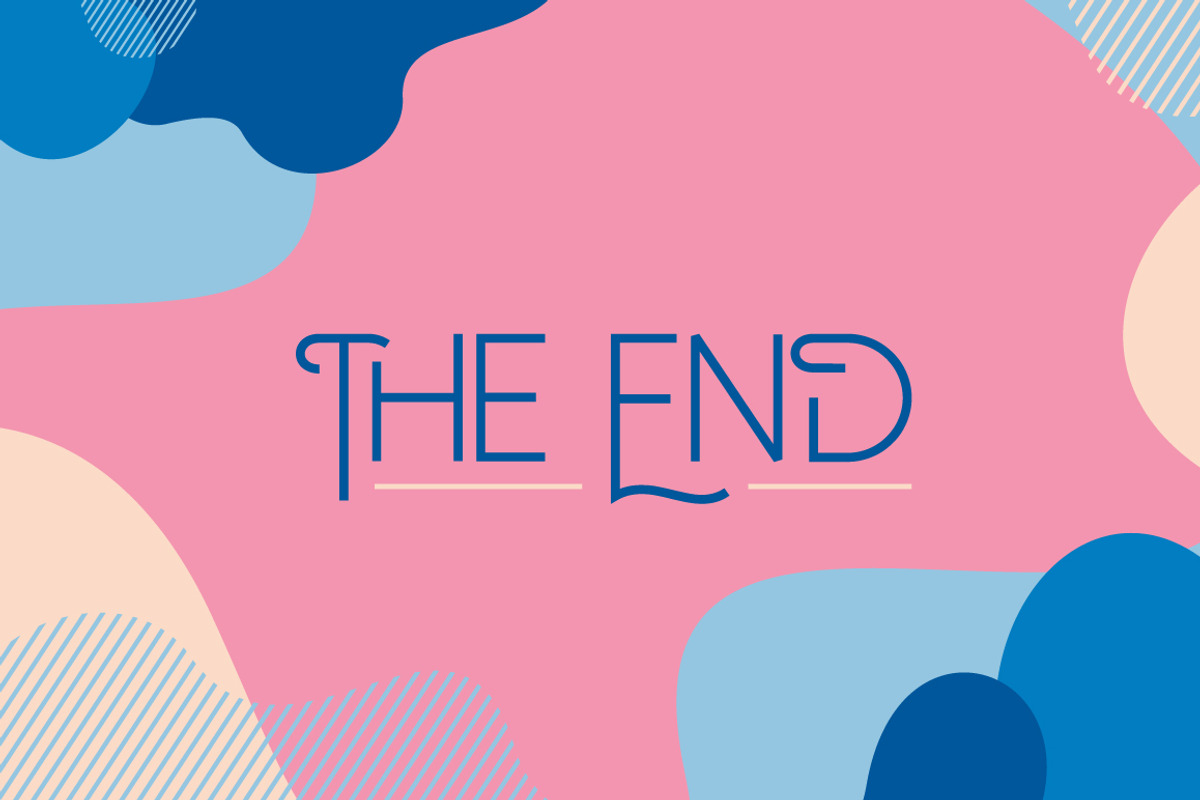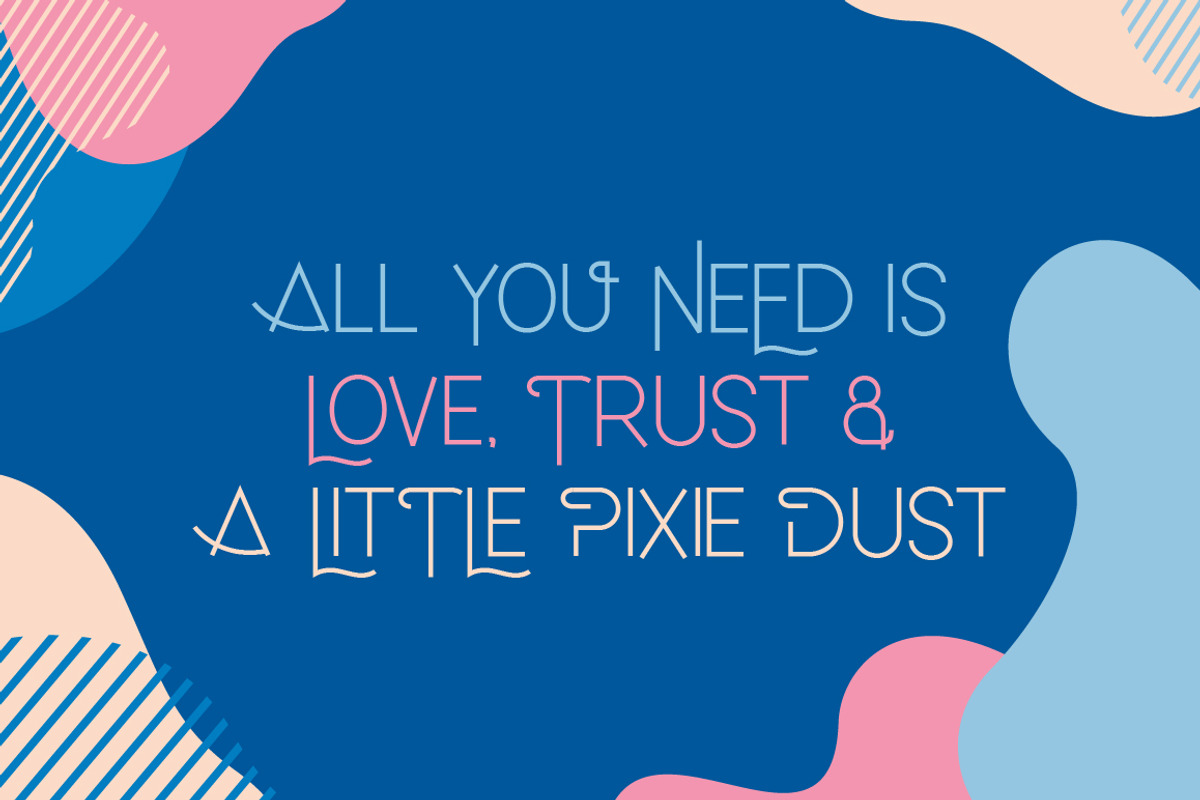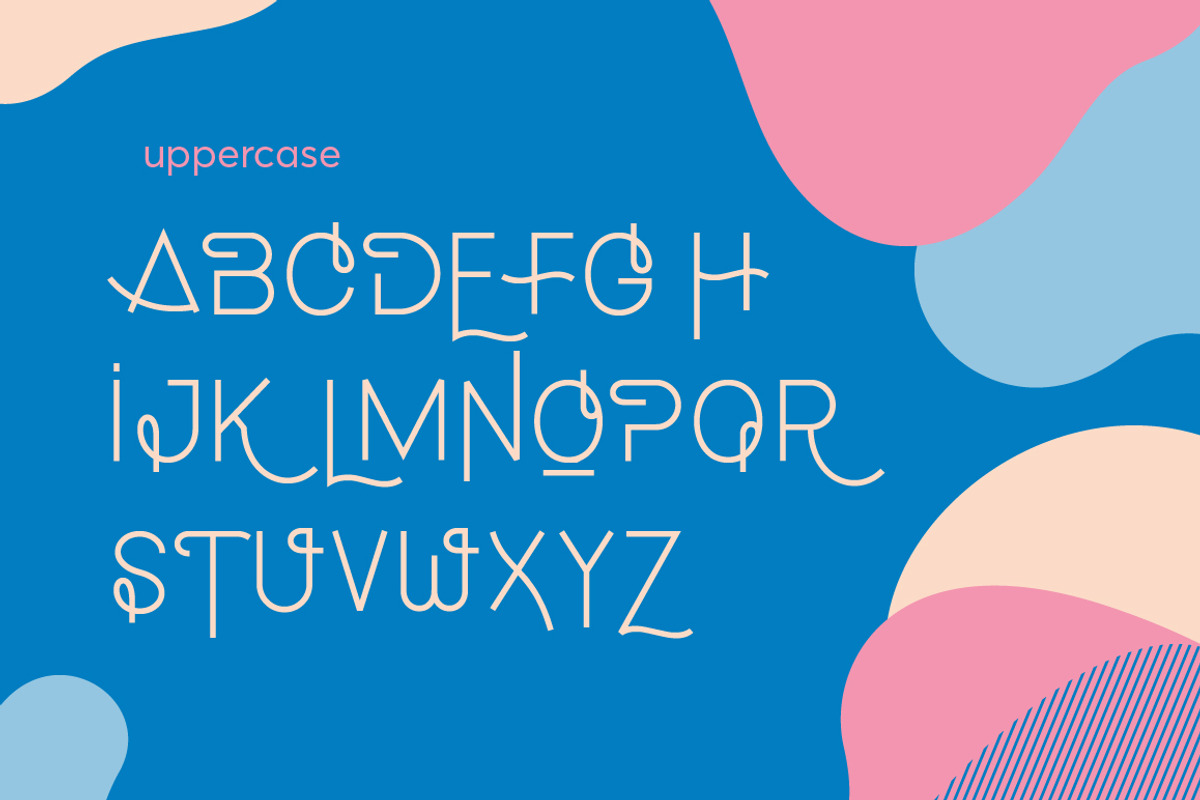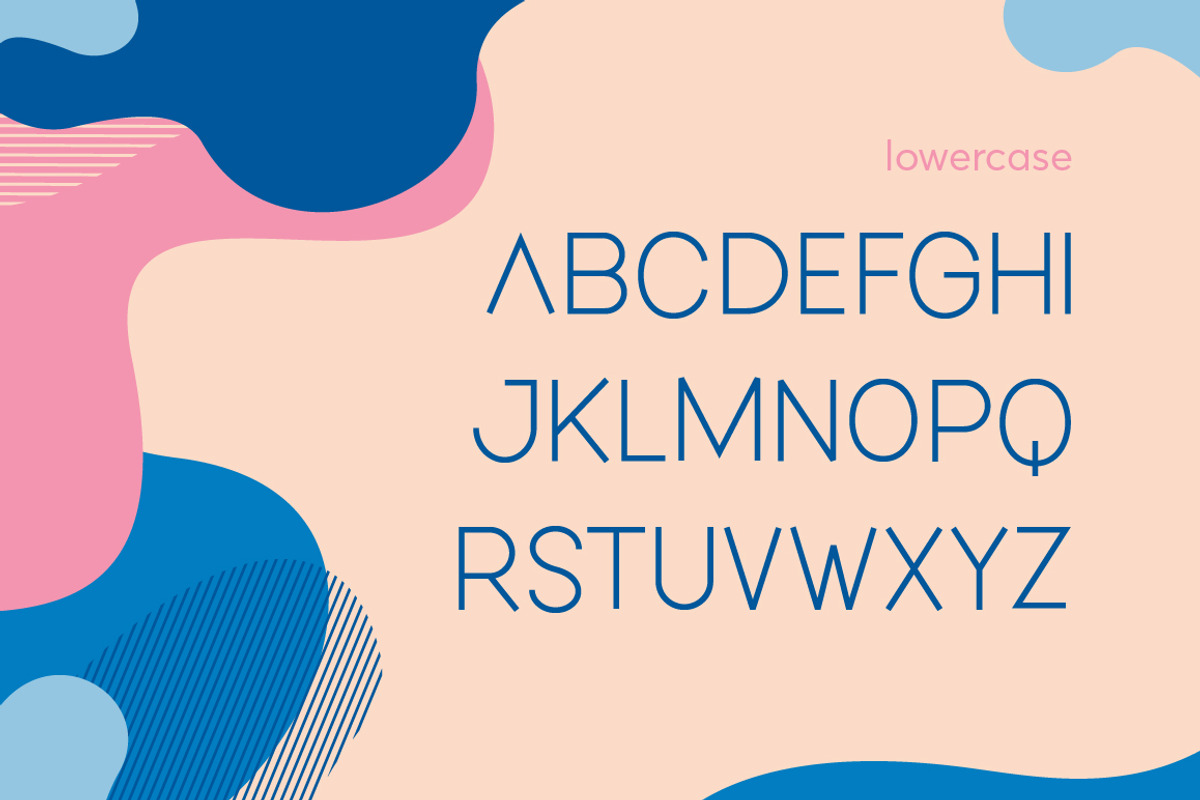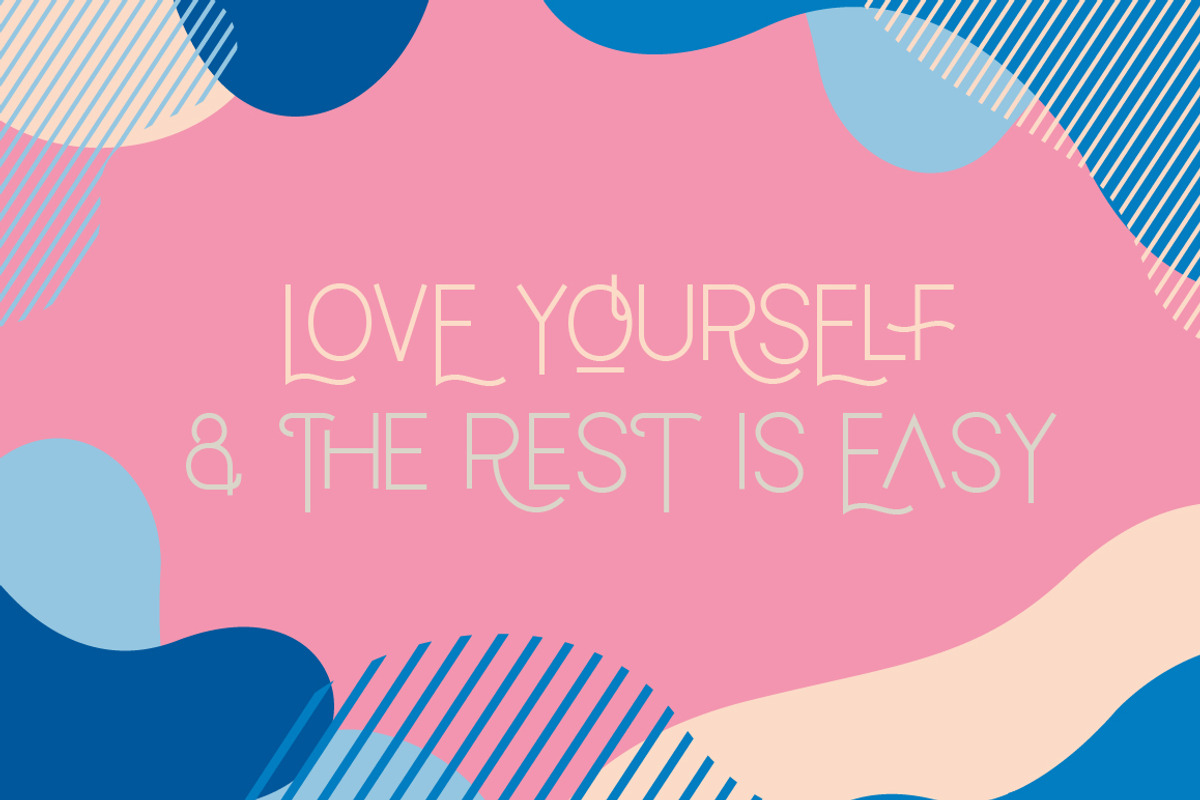
Lonely Lover Font
Lonely Lover is a brand new, playful font from Salt and Pepper Designs. Featuring a swirly, unique uppercase and a modern sans lowercase. Mixing and matching the two can help you achieve fancy words time and time again! Enjoy!
- Featuring a swirly, unique uppercase and a modern sans lowercase.
Why Lonely Lover Font is worth a look
Lonely Lover Font by Salt & Pepper Designs fits naturally into Branding, posters, packaging, typography.